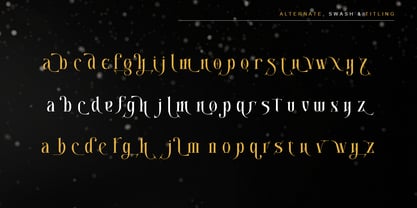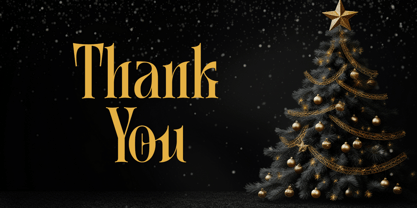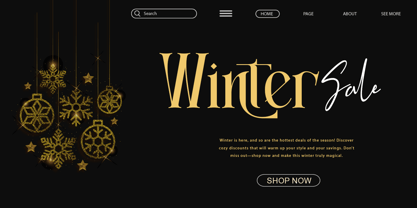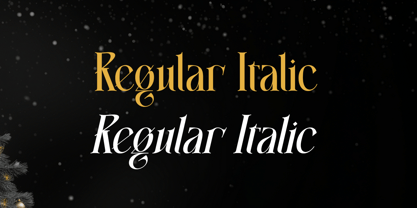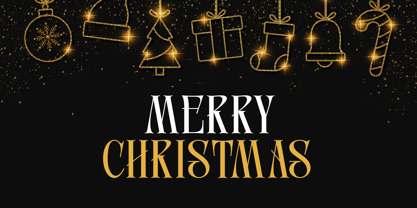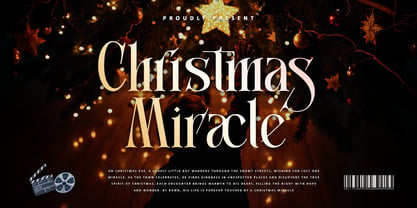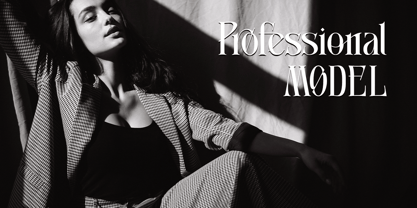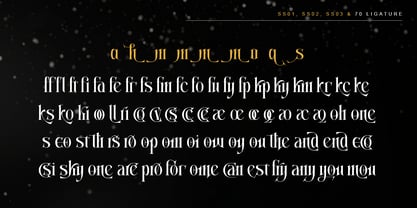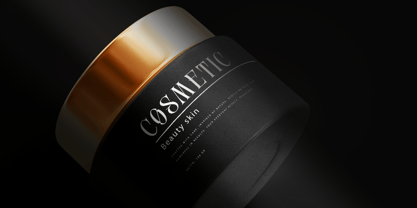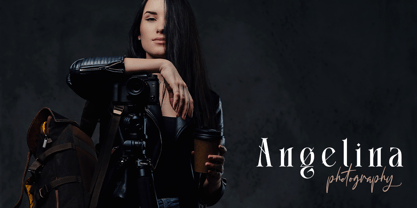
Christmas Joyvera
The Christmas Joyvera Font Family was designed by Thomas Aradea and published by Letterara. Christmas Joyvera contains 2 styles and family package options. More about this family
Introducing Christmas Joyvera, a refined serif font that blends modern sophistication with timeless festive charm. With its graceful curves, stylish ligatures, and unique letterforms, this typeface is perfect for elevating your holiday designs. From branding, packaging, and editorial layouts to Christmas cards, fashion campaigns, and event posters, Christmas Joyvera brings luxury and elegance to every project. Its glamorous yet versatile vibe makes it ideal for both modern and vintage-inspired designs. Plus, it’s fully PUA encoded, giving you easy access to all special glyphs and ligatures to unleash your creativity.